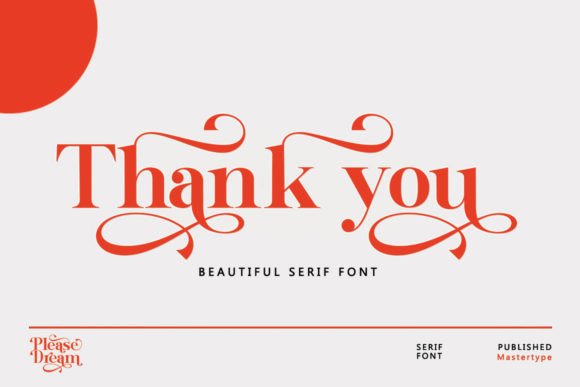
Please Dream Font
Immerse yourself in the luxurious allure of Please Dream, a modern yet versatile serif font, intricately crafted for variety and creativity. With its refined elegance and bold charm, Please Dream brings a unique edge to design aesthetics, effortlessly elevating your projects to new heights. From contemporary to retro, branding to crafts, stickers to wedding invitations, this font transcends boundaries and invites creativity, turning each design into a statement piece.
Please Dream offers an extensive array of glyphs, providing designers with an expansive palette to explore their creativity. Its sophisticated, modern style lends an air of class, elegance, and distinctiveness to any design endeavor, be it for logos, branding, fashion, magazines, or signage.
Endowed with comprehensive support for upper and lowercase letters, numbers, punctuation, and multilingual uses – Please Dream is also PUA-coded, providing alternative styles and ligatures for a more personalized design experience.